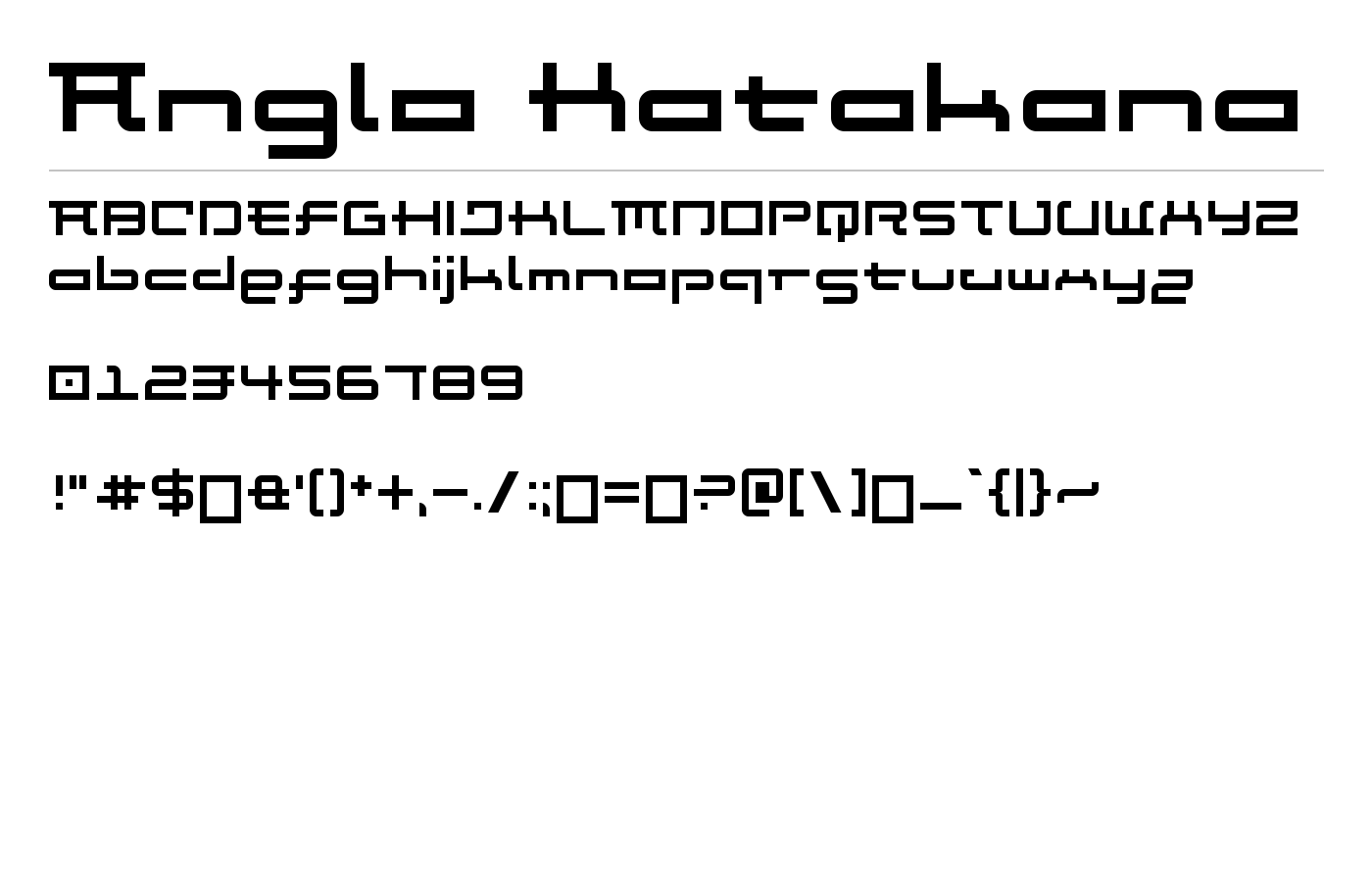
Anglo Katakana is a futuristic, geometric sans serif font with a distinct angular and squared appearance that blends modern digital aesthetics with a touch of sci-fi flair. Its consistent weight and uniform stroke width create a technical yet approachable look, making it ideal for tech branding, digital interfaces, and contemporary headlines where a sharp, clean style is desired. This font shines in settings that call for a unique, modern vibe while maintaining clear readability and a strong visual presence.
Anglo Katakana Font
About Anglo Katakana Font